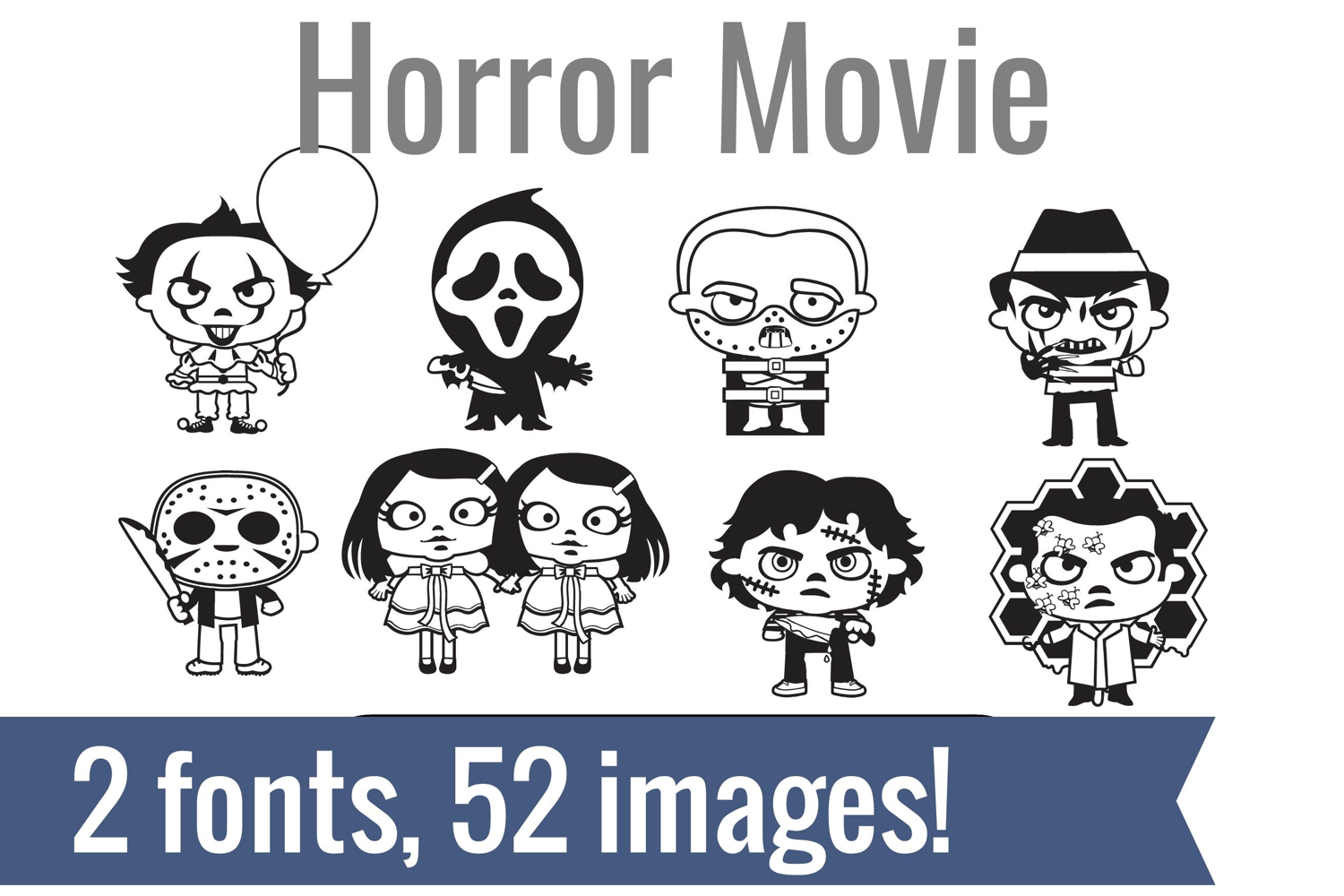
Horror Movie Dingbats
Unlock endless creativity with two perfectly coordinated fonts! There are two dingbat fonts in this bundle, both featuring the illustrated and cute versions of typical horror movies.